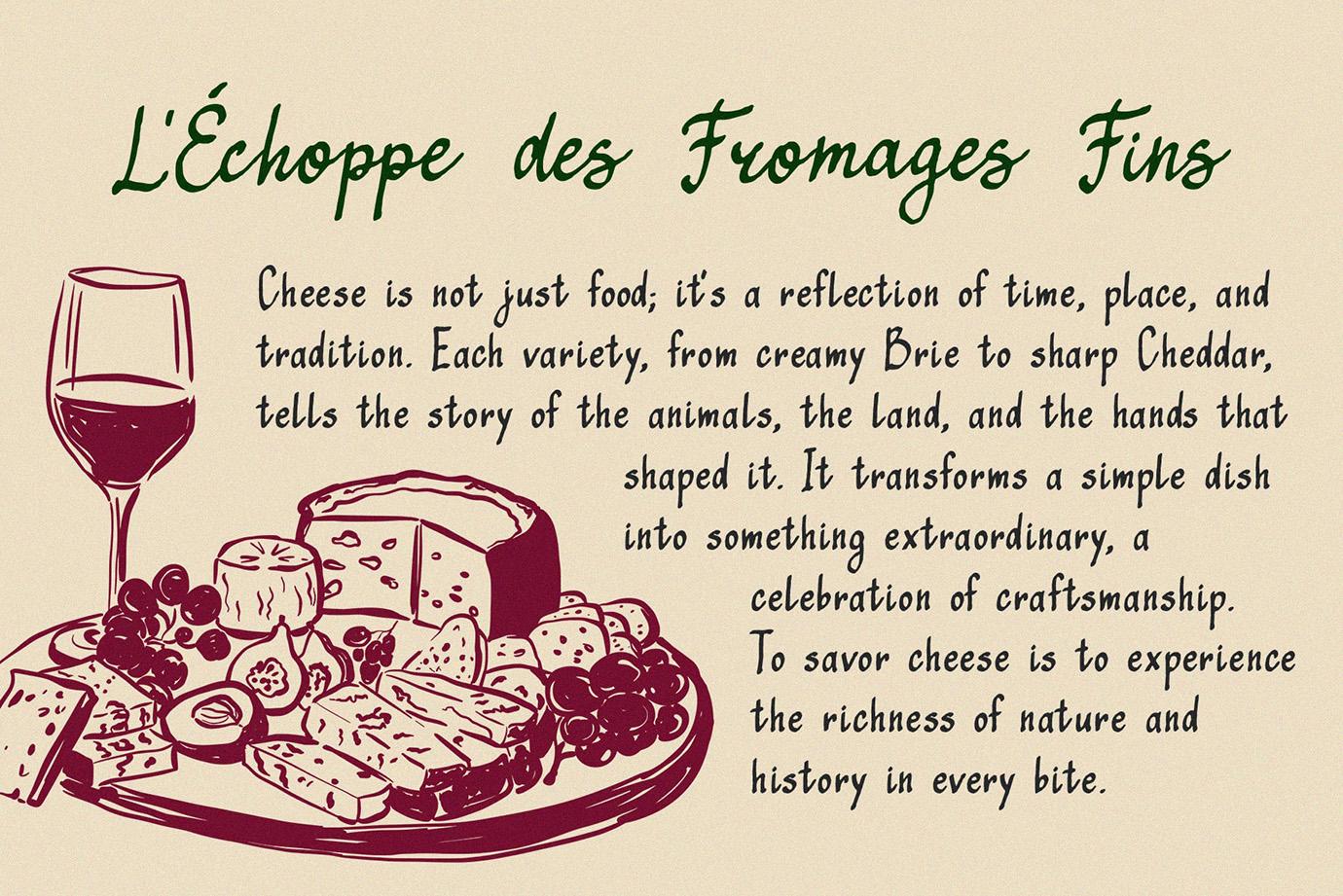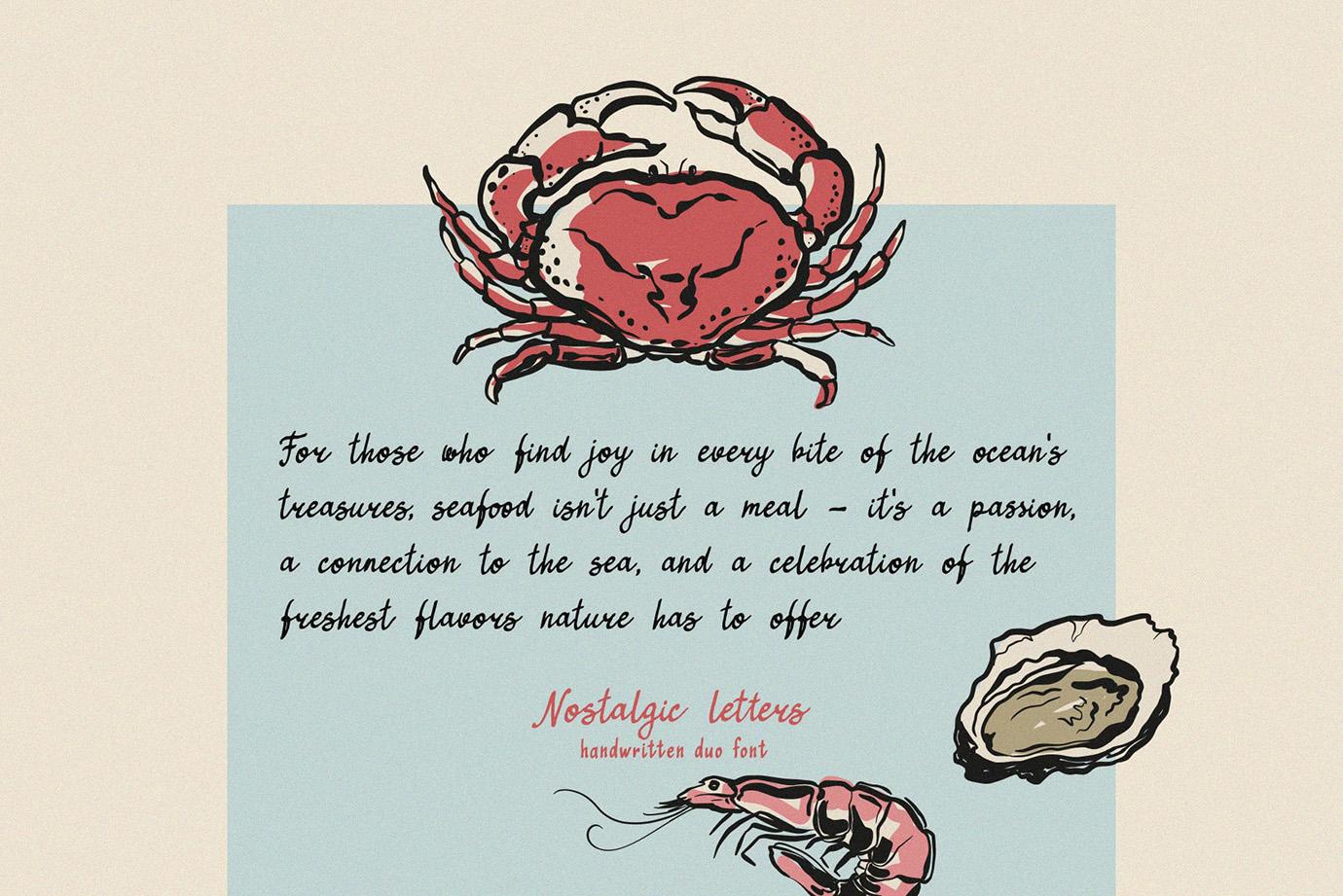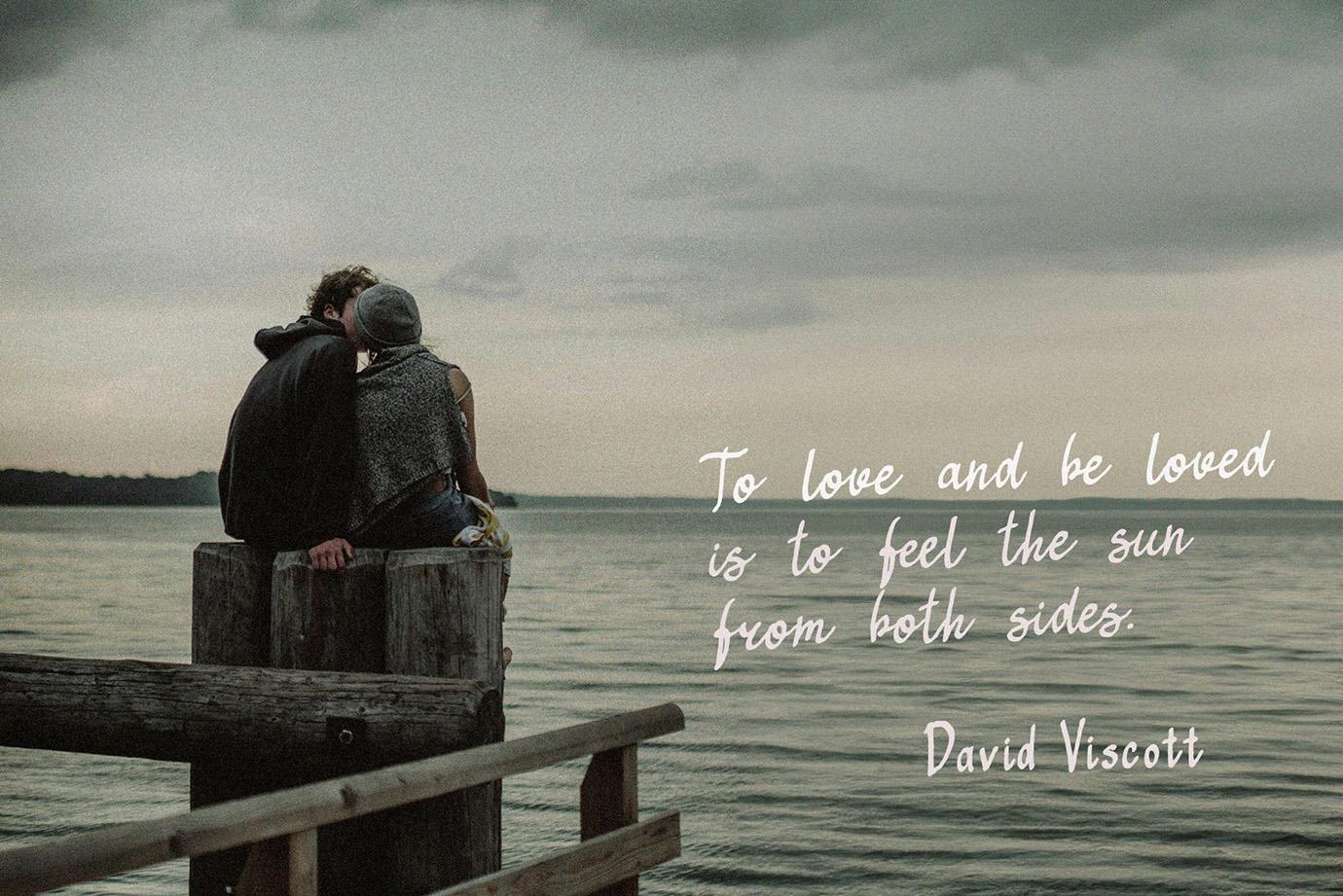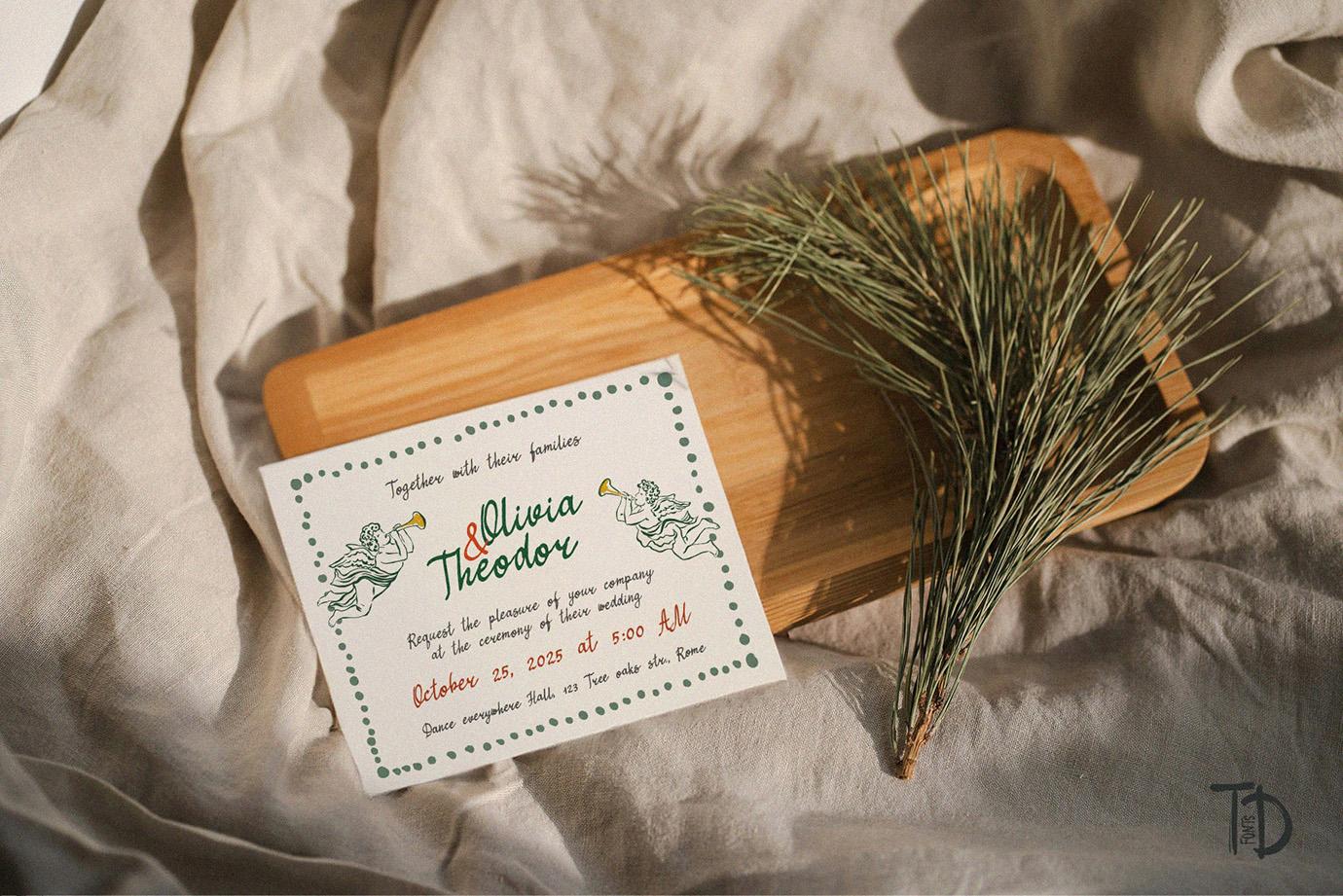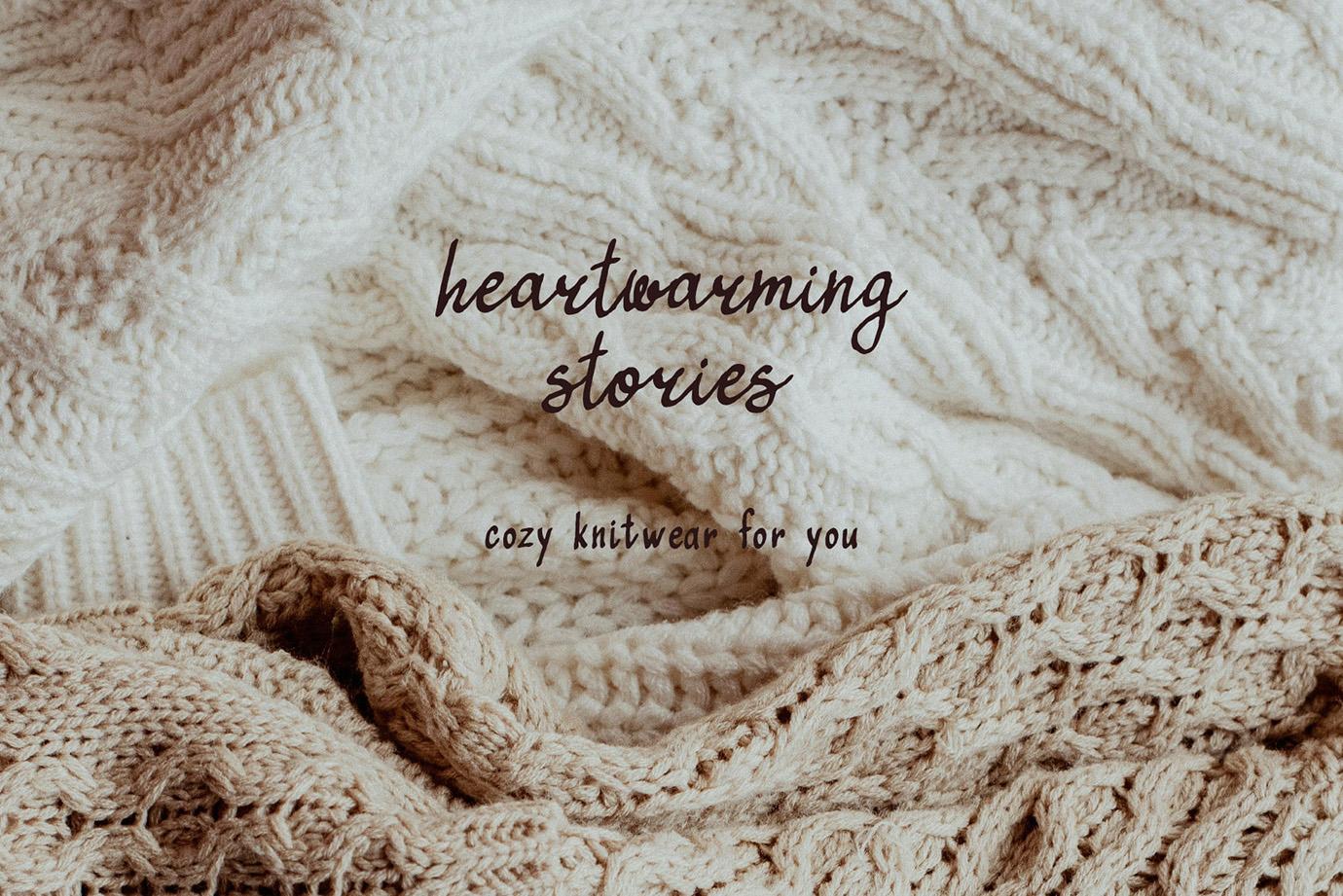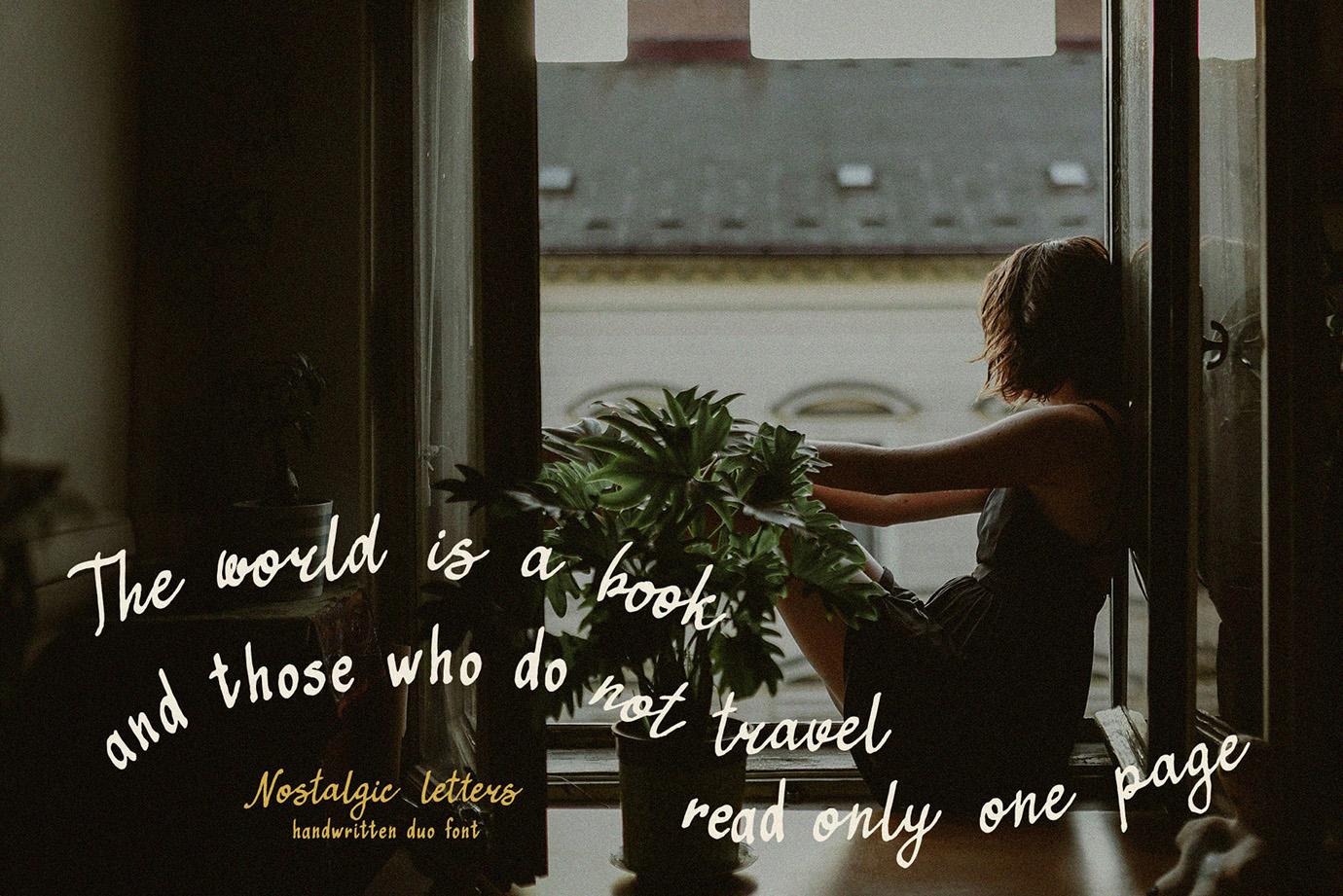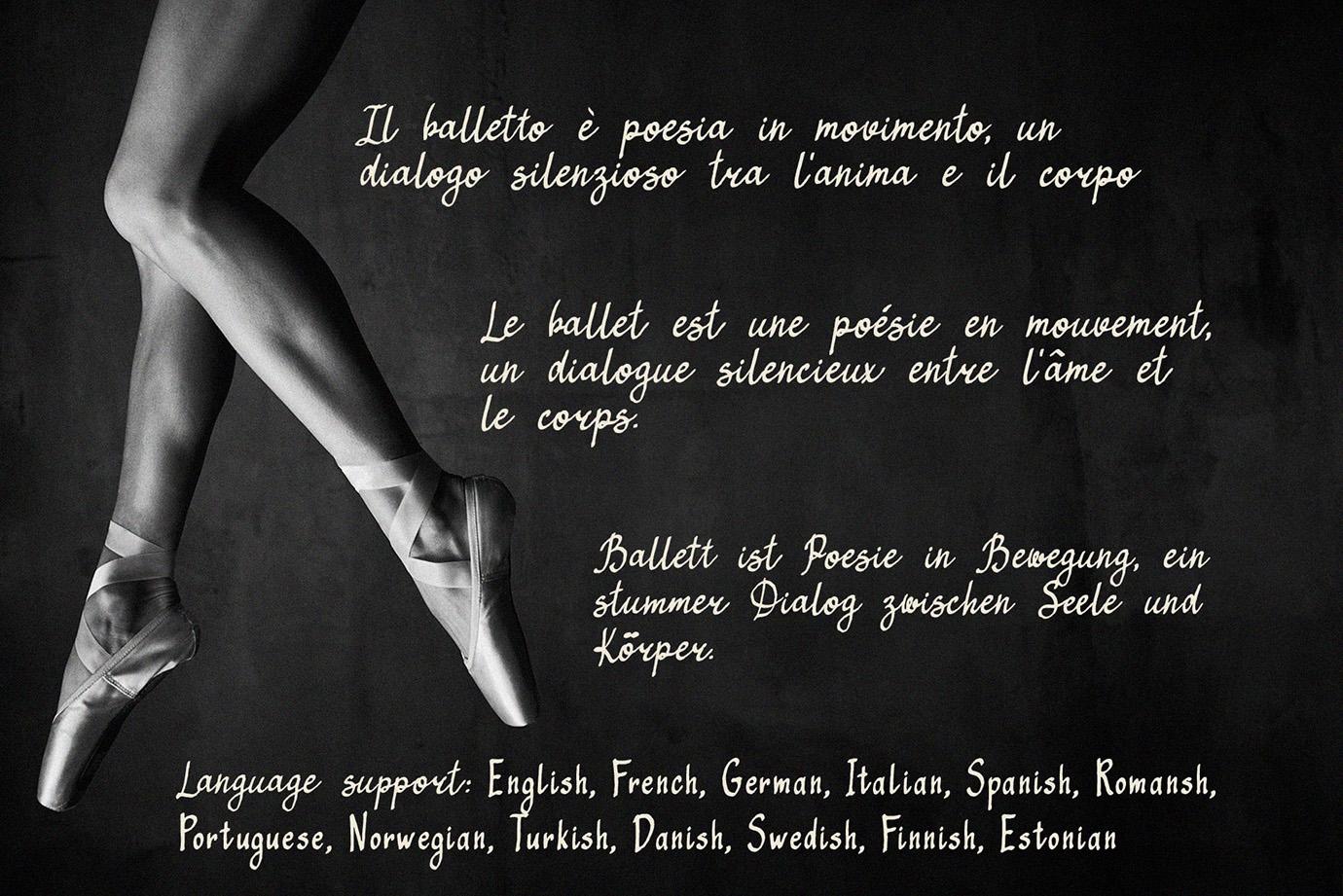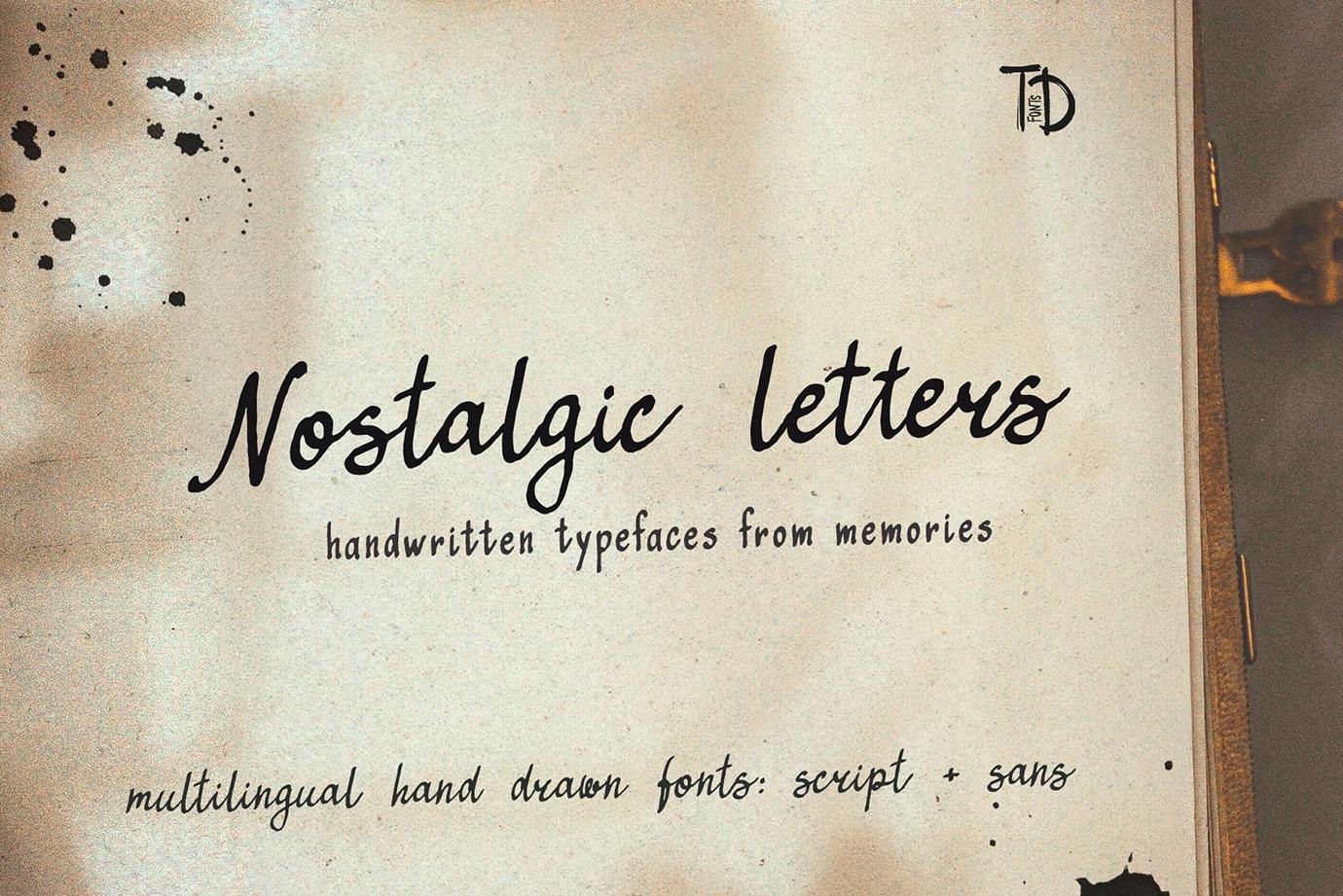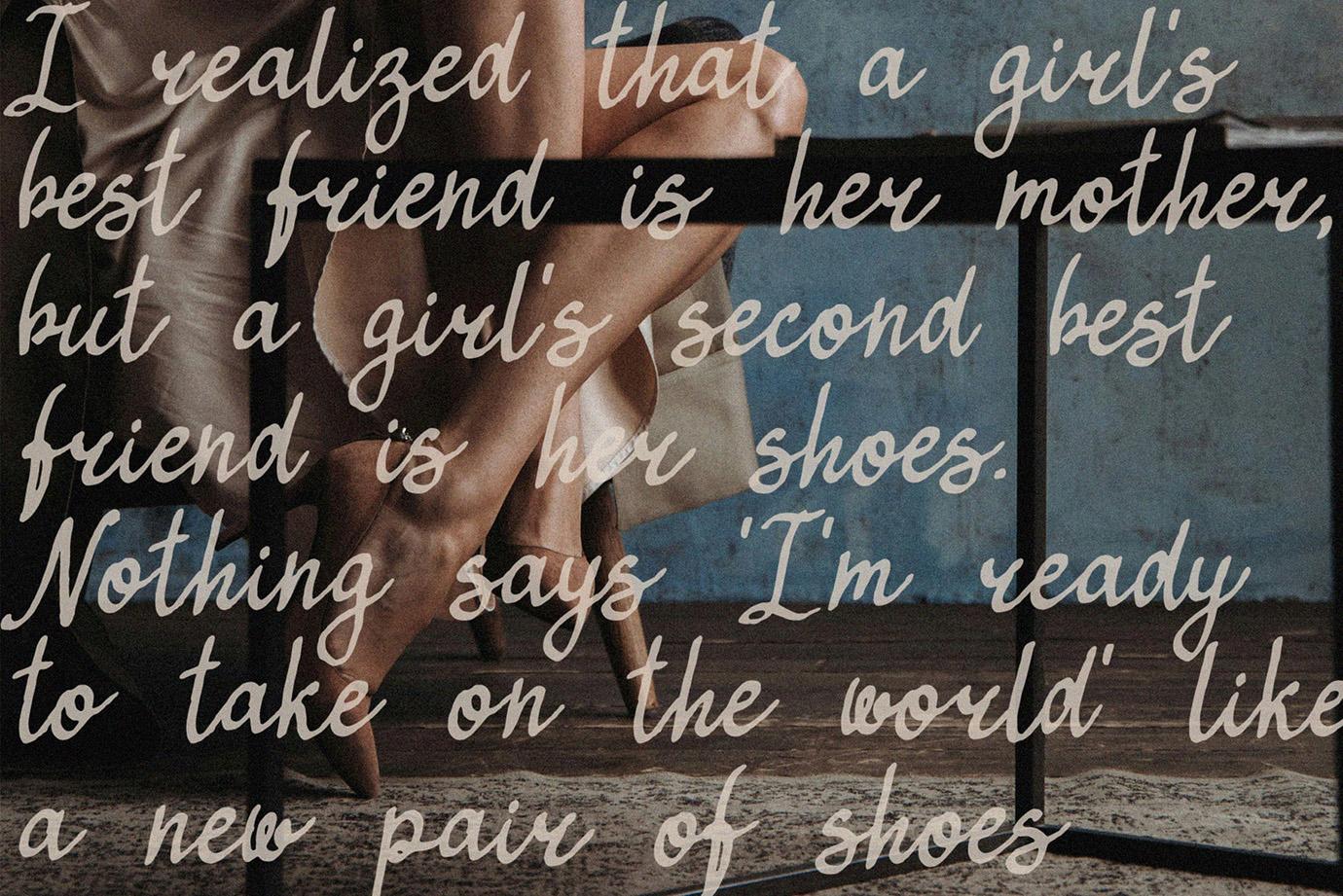
Nostalgic Letters is a captivating duo of handwritten fonts, carefully crafted for projects that celebrate the charm of hand-drawn design and vintage aesthetics. Inspired by traditional calligraphy, this font was created using a calligraphy pen on paper, giving it a soft texture and delightfully imperfect characters. The subtle, retro vibe of these slightly weathered letters adds warmth and authenticity, making them ideal for creating whimsical designs with a magical, nostalgic touch.
Whether you're designing product packaging, movie posters, art prints, or custom branding, Nostalgic Letters brings a unique character to your projects. Its versatility shines in a wide range of applications, from websites and quotes to wedding invitations, logos, and greeting cards.
This font duo features two complementary styles — a graceful script and a timeless sans serif. Together, they offer endless creative possibilities, making Nostalgic Letters the perfect choice for anyone who appreciates the beauty of handwritten typography.
Nostalgic letters has extensive language support, it includes English, French, German, Italian, Spanish, Portuguese, Danish, Norwegian, Swedish, Finnish, Estonian, Romansh, Turkish.